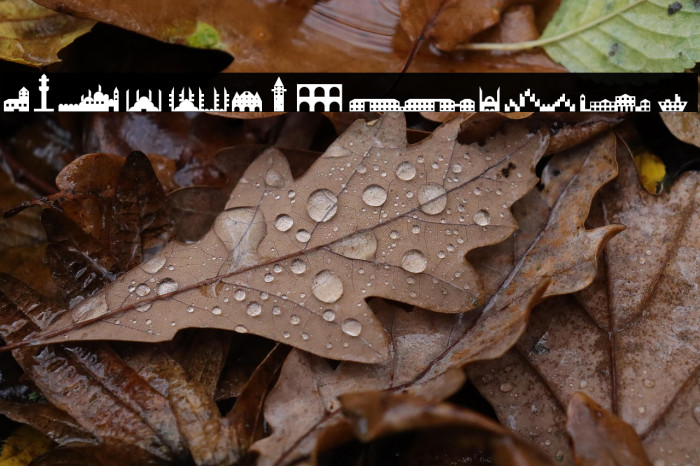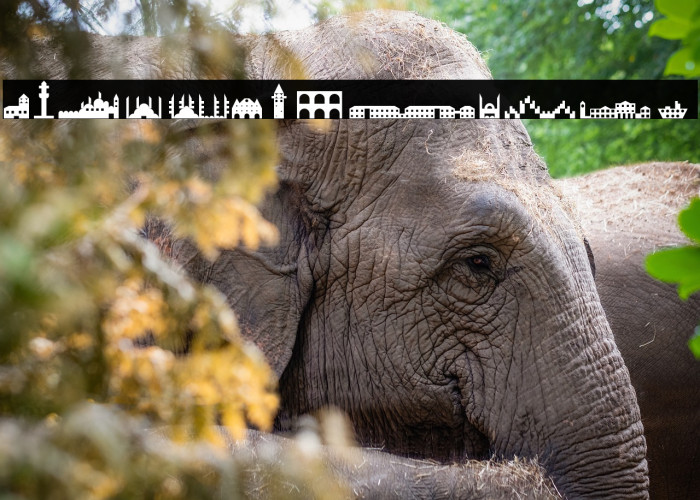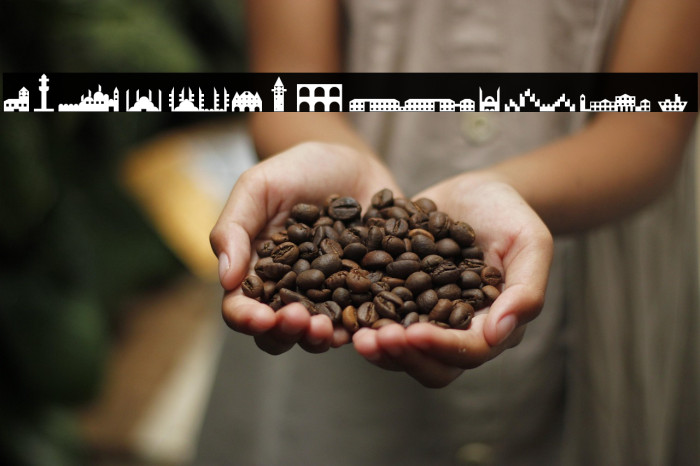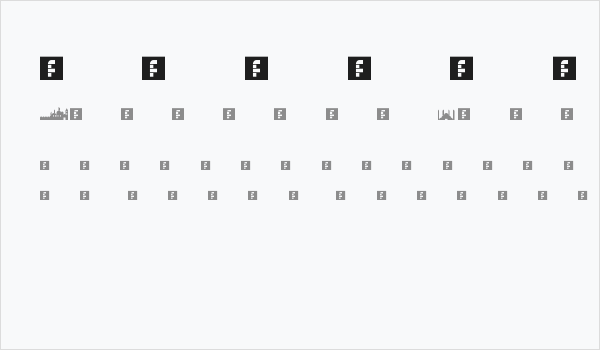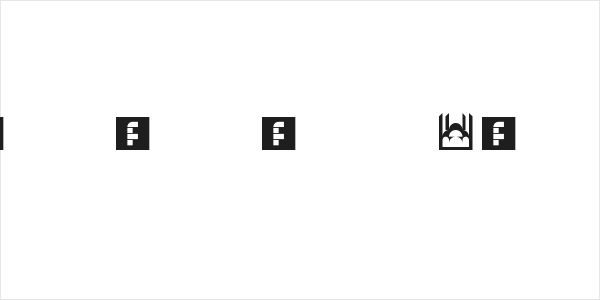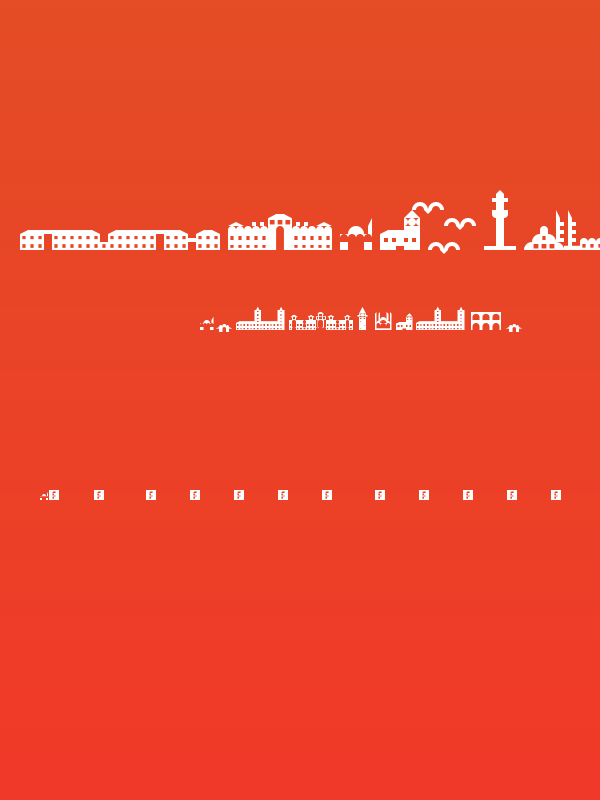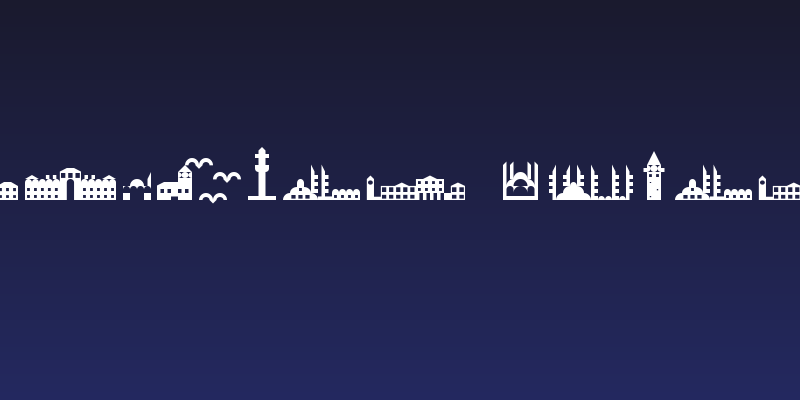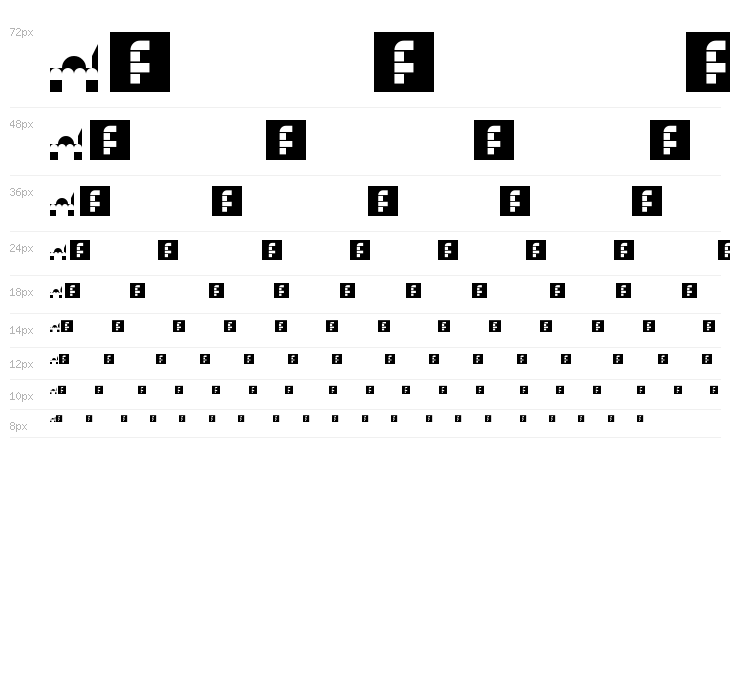
istanbul Regular Font
istanbul Regular Description
This is not a traditional font but rather a collection of iconic silhouettes representing the cityscape of Istanbul. Each character is replaced by a detailed illustration of famous landmarks and architectural elements, capturing the essence of the city's rich cultural heritage. The design is intricate, with each symbol showcasing a different aspect of Istanbul's skyline, from mosques and towers to bridges and ships. The style is decorative and artistic, making it more of a visual representation than a functional typeface.
| Use Case | Logos, Posters, Decorative elements |
| Proposed Projects | Ideal for travel brochures, city guides, posters, and any project celebrating Istanbul's architecture and culture. |